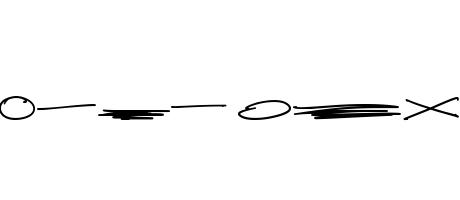
Mark
By Superfunk
Mark It! is a playful, hand-drawn font. Its uneven lines and slightly wobbly circles evoke a sense of informality and childlike energy. The strokes are bold, almost as if drawn quickly with a thick marker, giving a sense of urgency or excitement. The overall impression is one of friendly, spontaneous communication.